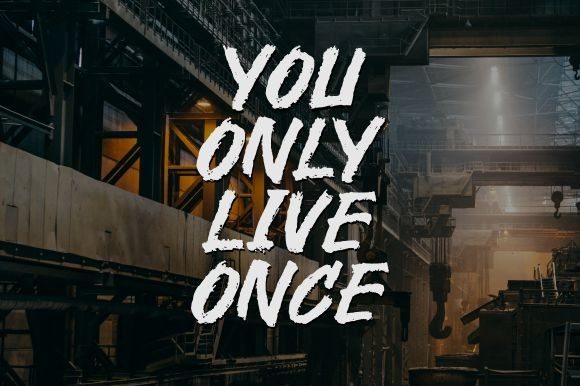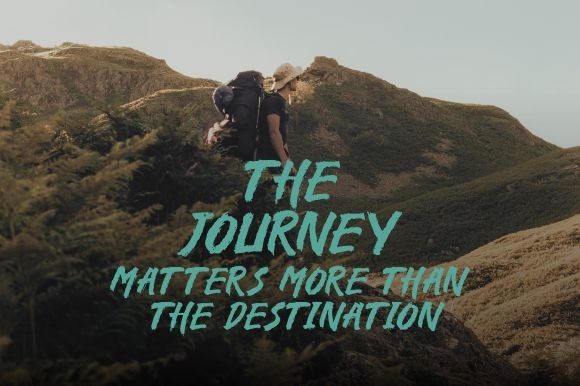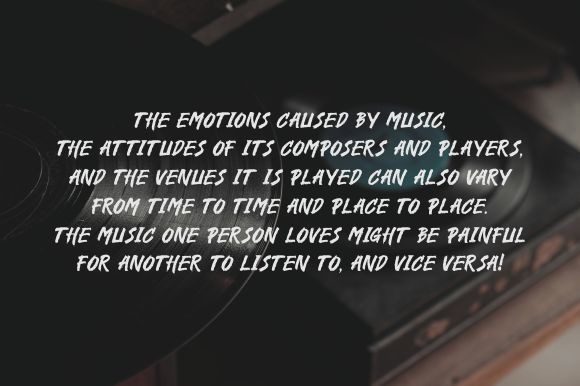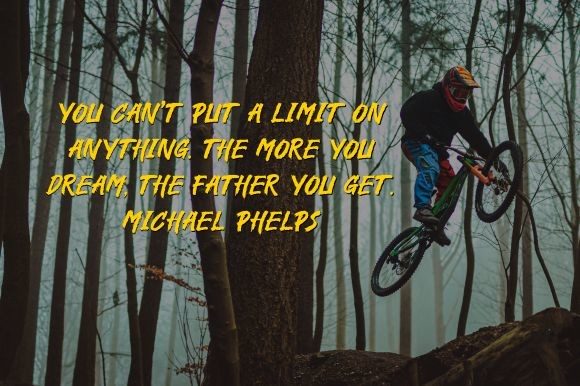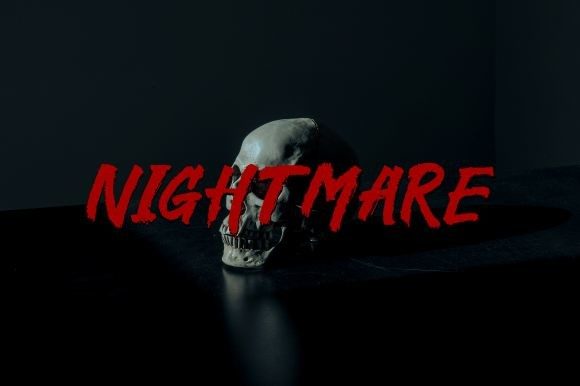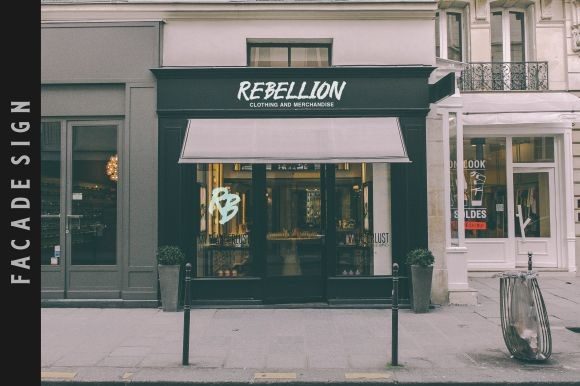
Introducing Deathless Font: The Ultimate Brushed Display Font for Creative Projects
Are you tired of using the same old fonts for your creative projects? Look no further than Deathless Font, a cool and versatile brushed display font that’s perfect for elevating your designs. Whether you’re a graphic designer, crafty DIY enthusiast, or social media influencer, Deathless Font is an incredibly valuable asset to add to your font library.
What Makes Deathless Font So Special?
Deathless Font is a unique and stylish brushed display font that’s designed to make your creations stand out. Its distinctive, hand-crafted look gives it a personal touch that’s hard to find in more traditional fonts. With Deathless Font, you can add a touch of personality and flair to your designs, making them more engaging and memorable.
Key Features of Deathless Font
- Brushed Texture: Deathless Font features a beautiful, brushed texture that gives it a distinctive look and feel.
- Versatility: This font is incredibly versatile and can be used on a wide range of projects, from posters and flyers to social media graphics and website headers.
- High-Quality Design: This font is designed with high-quality craftsmanship in mind, ensuring that it looks great in any context.
How to Use Deathless Font in Your Creative Projects
Deathless Font is an incredibly versatile font that can be used in a wide range of creative projects. Here are just a few ideas to get you started:
- Graphic Design: Use Deathless Font to create eye-catching posters, flyers, and brochures that showcase your brand or message.
- Social Media Graphics: Add a touch of personality to your social media graphics with Deathless Font, making them more engaging and shareable.
- Website Headers: Use Deathless Font to create stunning website headers that set the tone for your brand or website.
- Crafting and DIY: Add a personal touch to your crafting and DIY projects with Deathless Font, making them more unique and special.
Benefits of Using Deathless Font
So why choose Deathless Font for your creative projects? Here are just a few benefits of using this amazing font:
- Unique Look: Deathless Font has a unique, hand-crafted look that’s sure to make your creations stand out.
| Font Name | Deathless Font |
| Author | Typecase |